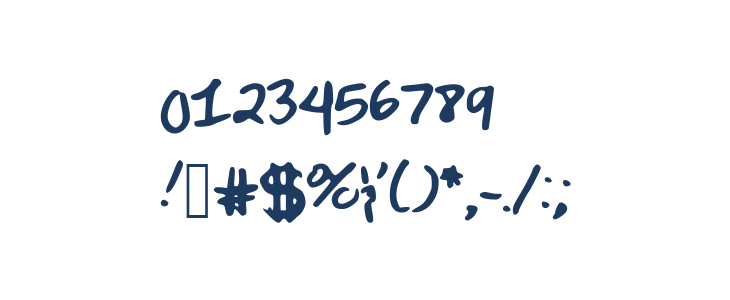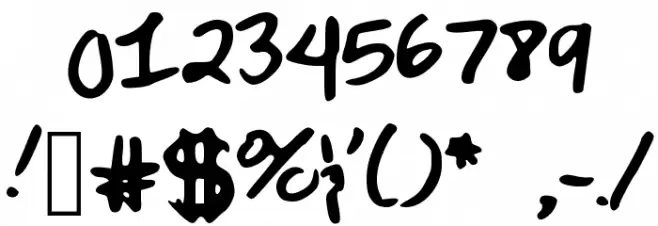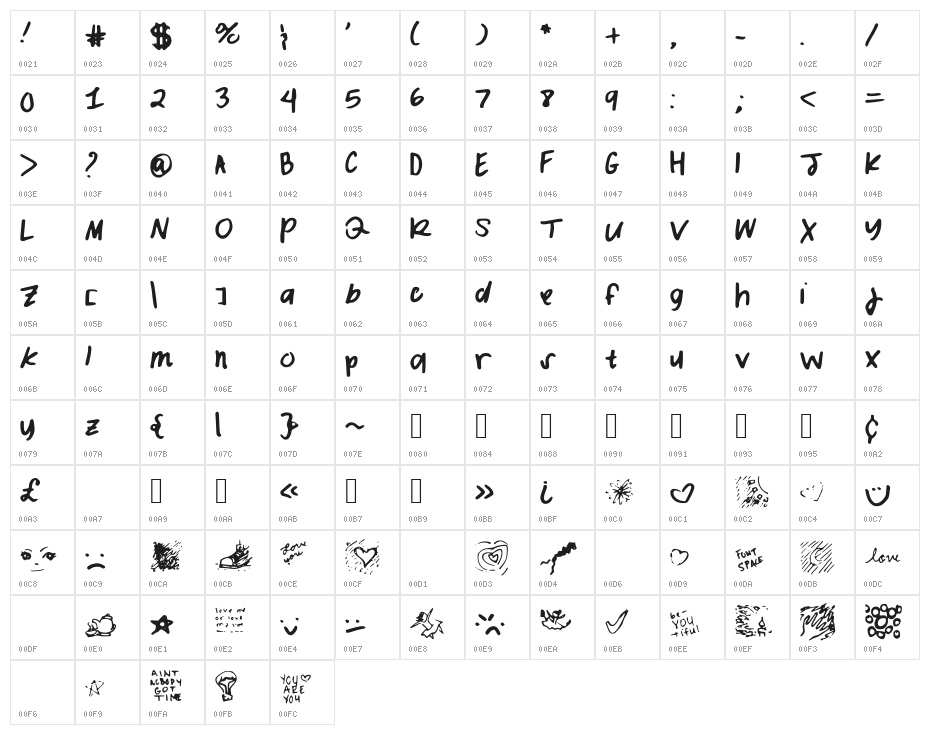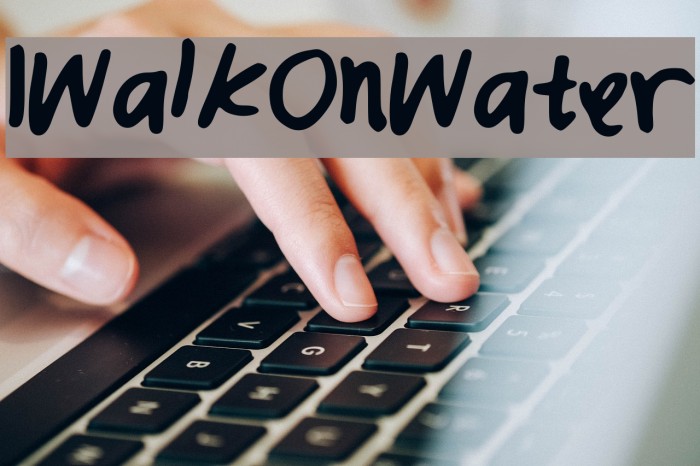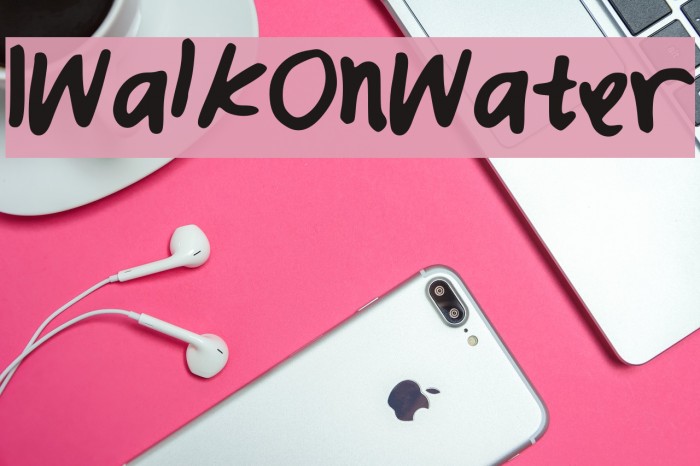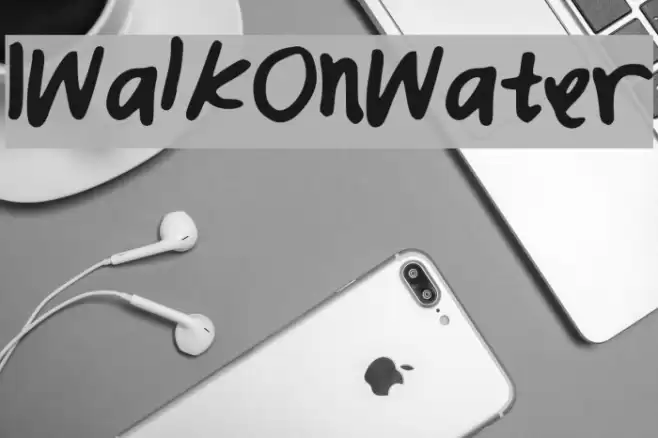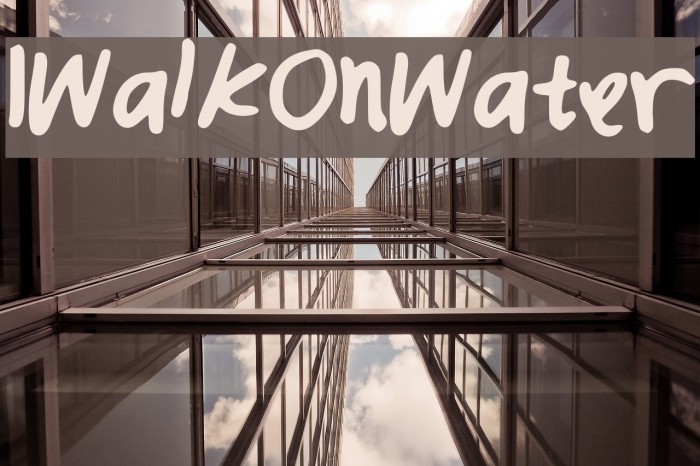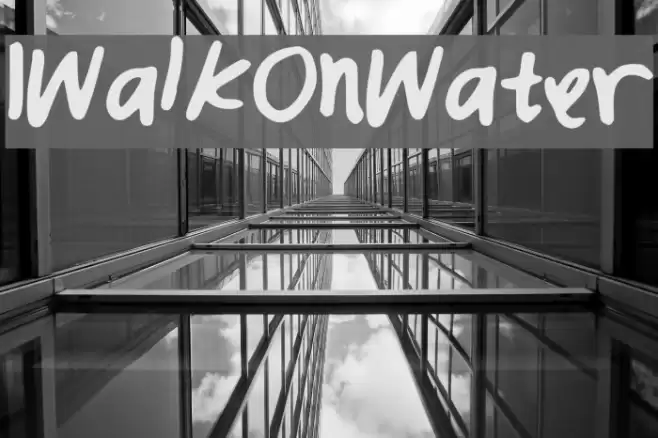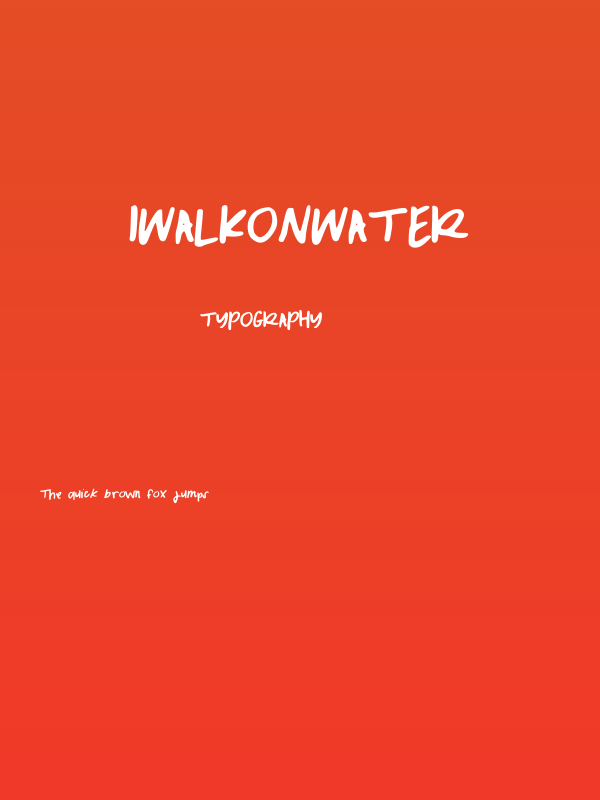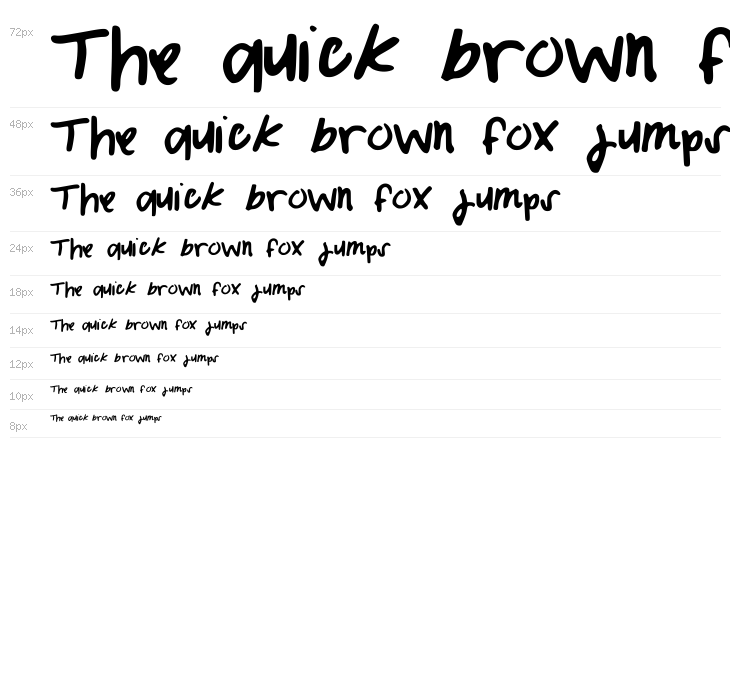
IWalkOnWater Font
IWalkOnWater Description
This font exhibits a playful and informal handwritten style, characterized by its bold and expressive strokes. The letters are slightly irregular, giving it a casual and spontaneous appearance. The uppercase and lowercase letters maintain a consistent flow, with rounded edges and a lively bounce that adds to its charm. The numerals and special characters follow the same energetic style, making it versatile for various creative applications. Its boldness ensures readability while maintaining a friendly and approachable aesthetic.
| Use Case | Logos, Headlines, Informal Invitations |
| Proposed Projects | Ideal for greeting cards, children's books, playful branding, and social media graphics. |